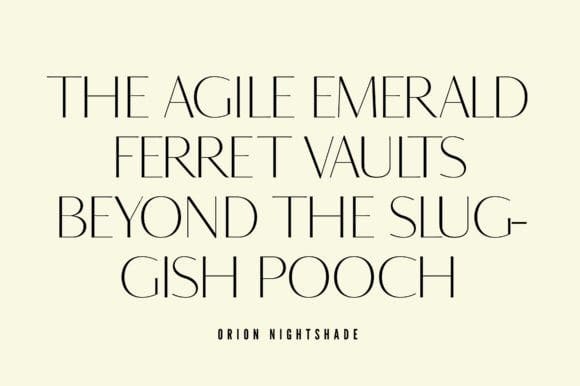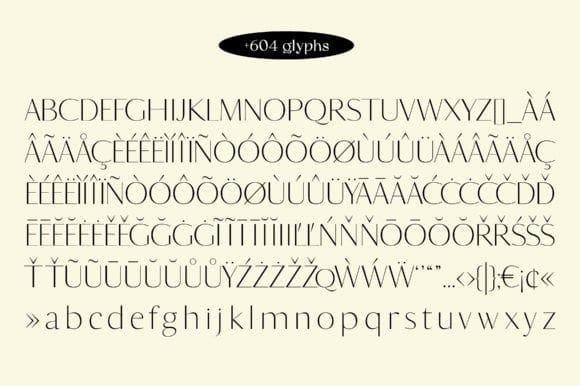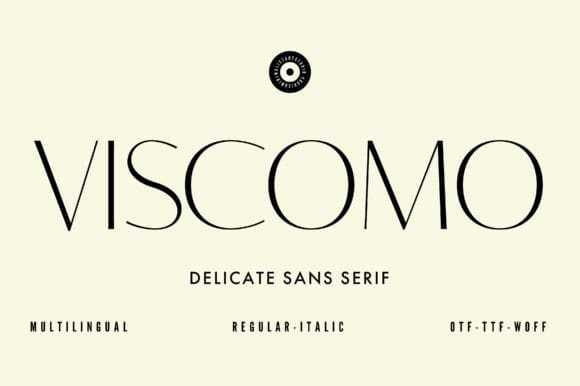
VISCOMO FONT
VISCOMO FONT a minimalist, chic, and modern sans serif typeface that embodies the essence of modern elegance. With delicate strokes and timeless minimalism, it adapts seamlessly to various design projects, from logos to websites. Its captivating readability ensures clear communication, making it the perfect choice for sophisticated and impactful creations. Elevate your designs with Viscomo and embrace the power of minimalist charm.